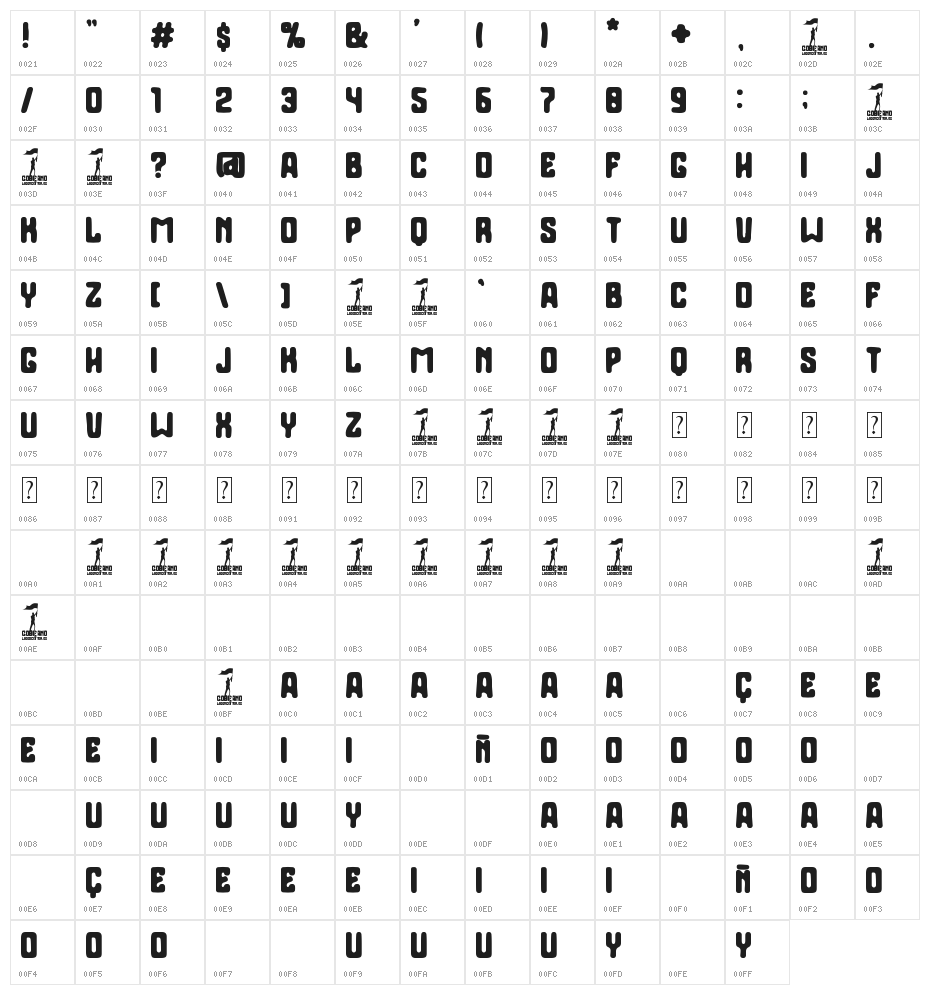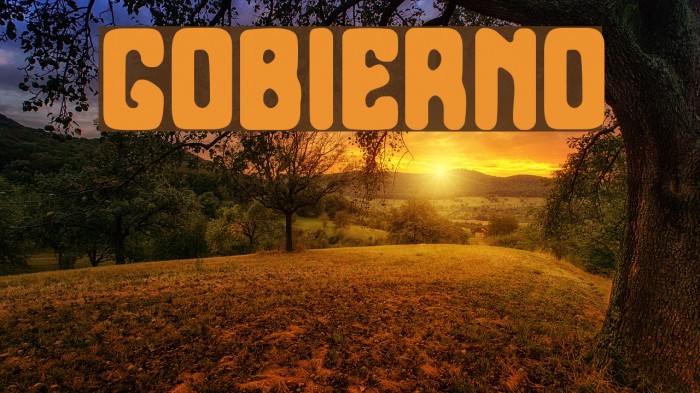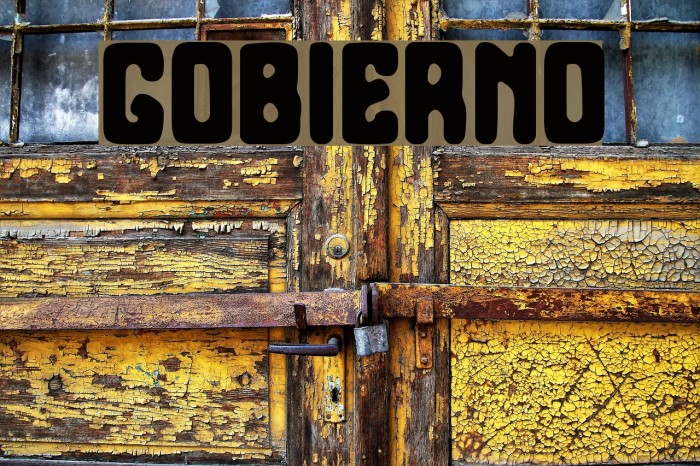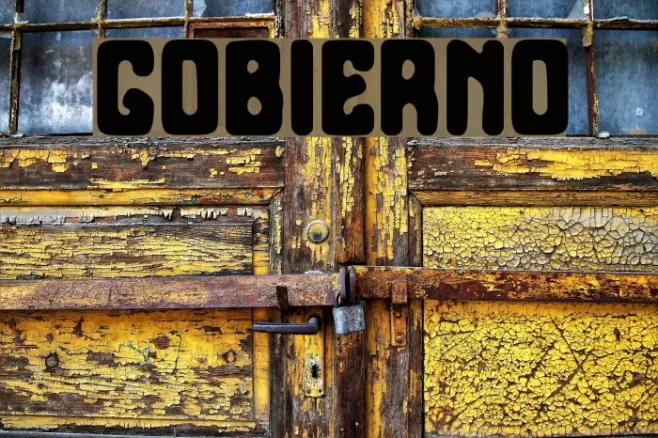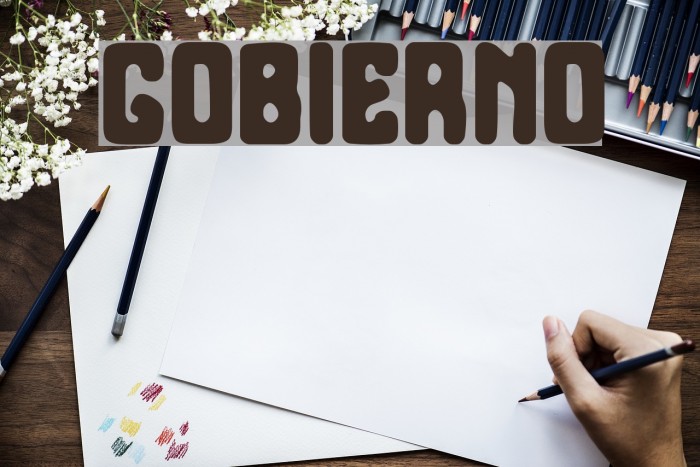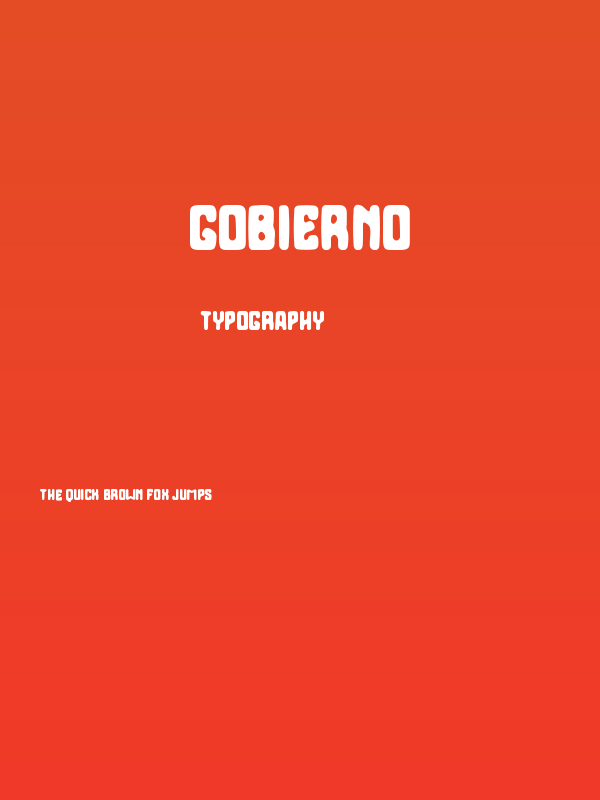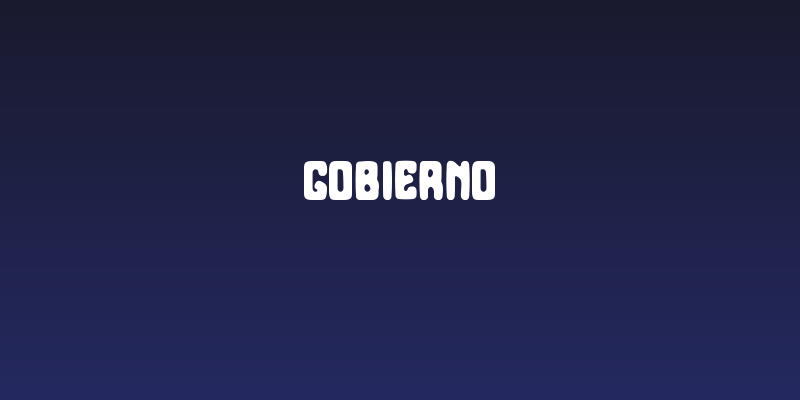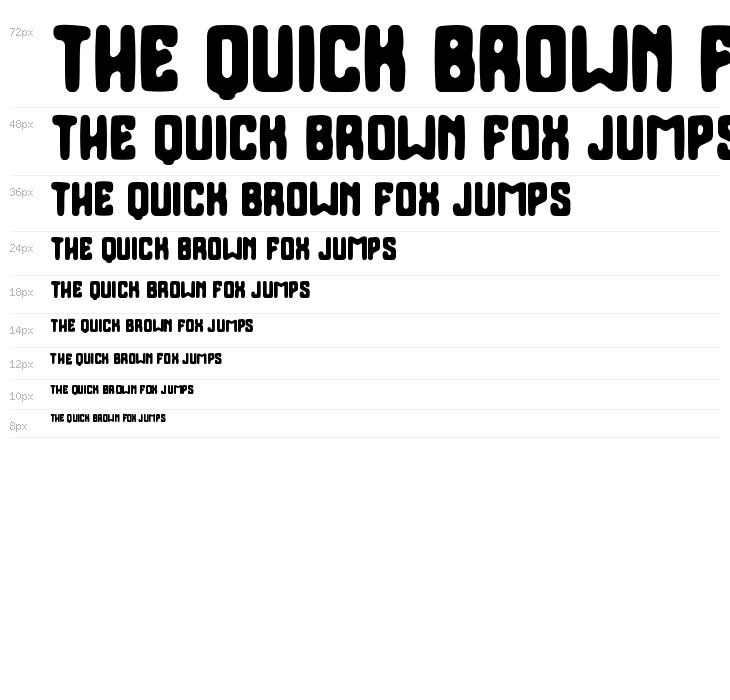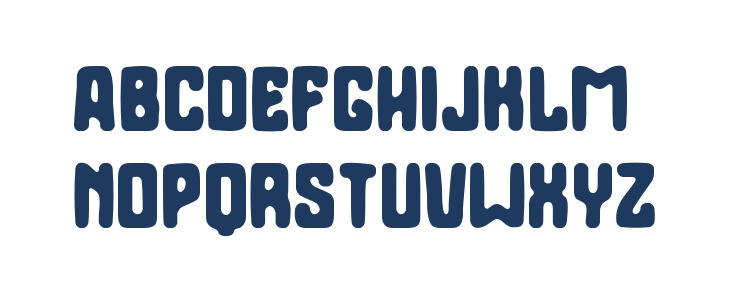
Gobierno Font
Gobierno Description
This font features a bold and playful design with thick, rounded strokes that give it a friendly and approachable appearance. The characters are uniformly wide, creating a sense of balance and stability. The rounded edges soften the overall look, making it suitable for informal and fun projects. The numbers and special characters maintain the same playful style, ensuring consistency across all elements. This font's unique style makes it stand out, while its readability remains intact.
| Overall Style | Playful, Modern |
| Proposed Projects | Ideal for children's books, playful branding, posters, and event invitations. |